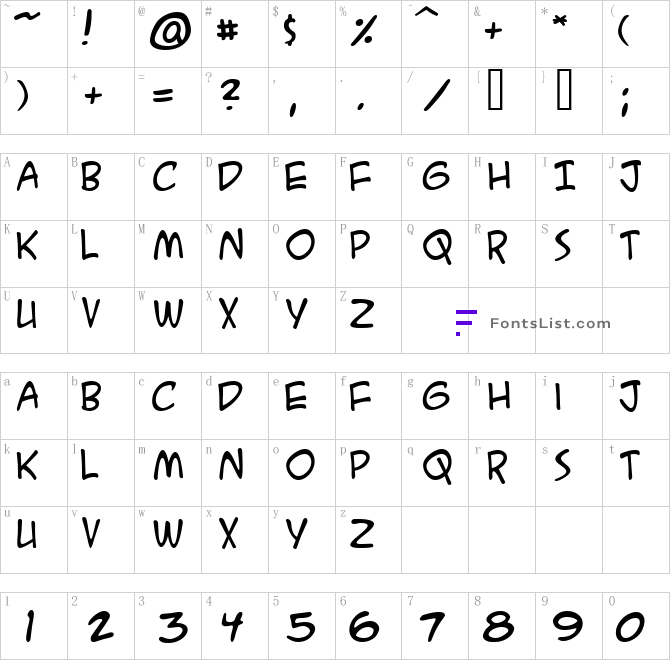
- Font Name:A.C.M.E. Secret Agent
ACME-Secret-Agent.ttf is a very beautiful artistic font, ACME-Secret-Agent.ttf is widely used in the design and printing of various books and pictures,ACME-Secret-Agent.ttf has a strong visual impact,ACME-Secret-Agent.ttf is a commonly used font in newspapers, magazines and books, and is used in posters, e-commerce Poster design, store design, logo design, font design and other fields.ACME-Secret-Agent.